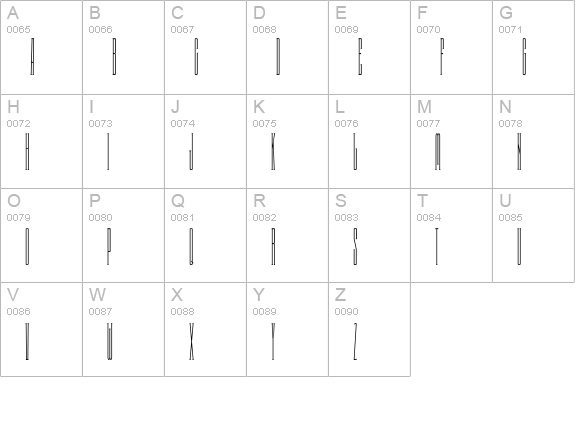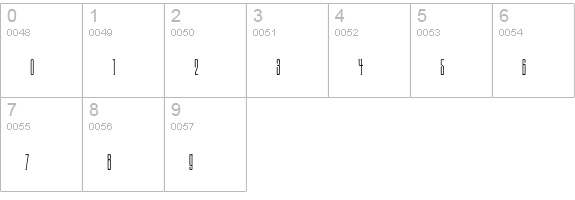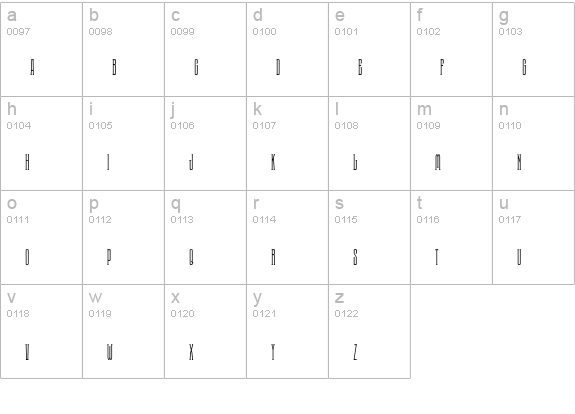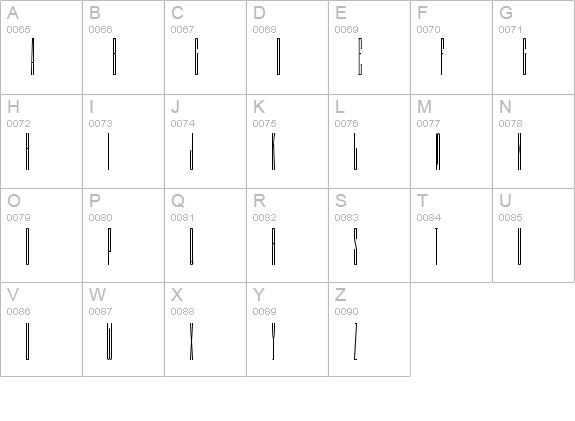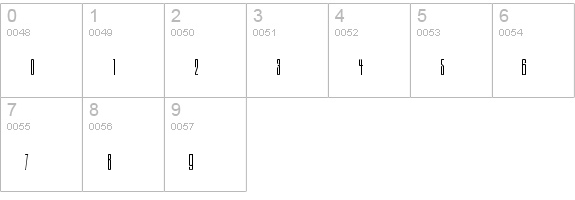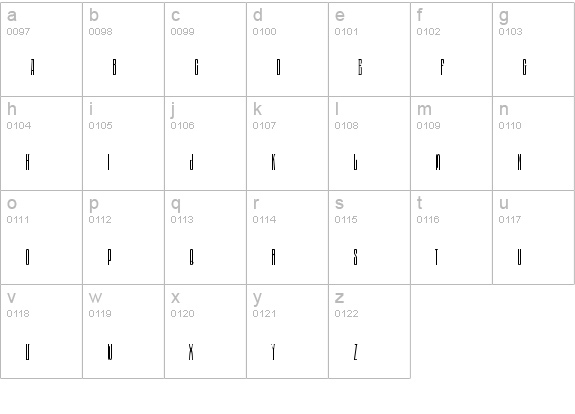
Scaffold Font Details
Introducing Scaffold font, a stunningly versatile typeface that seamlessly combines elegance, modernity, and timeless appeal. With its sleek and sophisticated design, Scaffold font captures attention effortlessly, making it the perfect choice for a wide range of creative projects. This magnificent font boasts a unique balance of clean lines and subtle curves, creating a harmonious aesthetic that is both refined and contemporary. Whether used for branding, editorial design, web design, or any other creative endeavor, Scaffold font elevates any project to new heights of sophistication. The versatility of Scaffold font truly knows no bounds. Its carefully crafted letterforms can adapt effortlessly to a variety of design styles, from minimalist and sleek to bold and expressive. This font effortlessly conveys a sense of professionalism, making it an ideal choice for corporate branding, presentations, or any project that demands a touch of elegance and refinement. What makes Scaffold font even more remarkable is that it is freely available to download at FontsMarket.com. This means that designers, creatives, and enthusiasts alike can easily access this exceptional font and incorporate it into their projects without any barriers or limitations. With its wide availability, Scaffold font empowers designers to express their creativity freely and effortlessly. So why wait? Discover the limitless possibilities that Scaffold font offers and bring your designs to life with its refined elegance and modern appeal. Download this extraordinary font for free at FontsMarket.com and let your creativity soar to new heights.